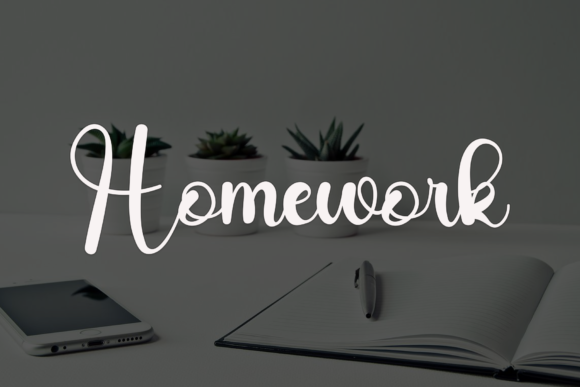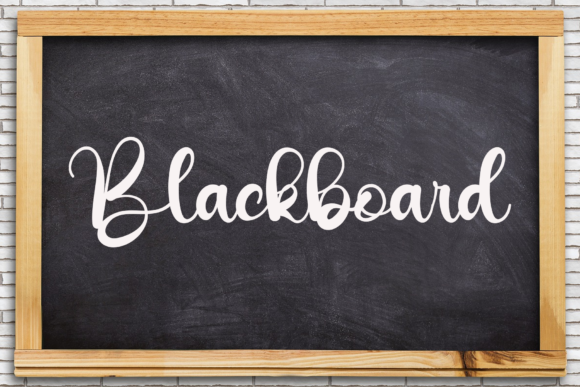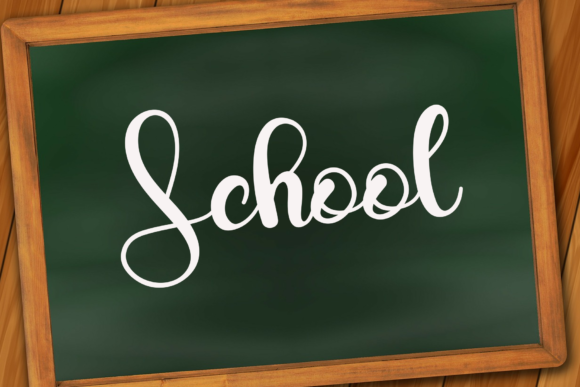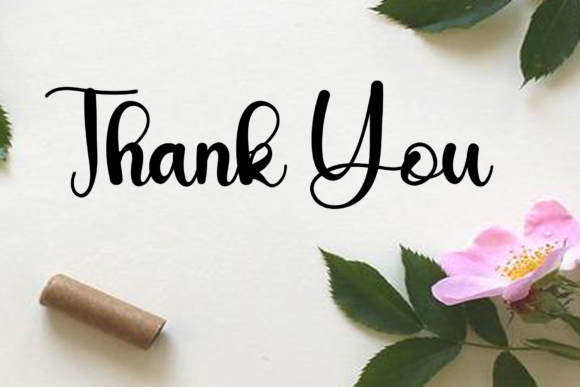
Writing Font
“Writing” is introduced as a finely crafted handwritten font that seamlessly blends smoothness, elegance, and flowing characters. With its beautiful and balanced character, this font effortlessly integrates into a diverse range of designs, promising to bring your most creative ideas to vibrant life.
The use of terms like “smooth, elegant, and flowing” effectively conveys the visual essence of “Writing.” Each stroke of the characters unfolds gracefully, contributing to an overall aesthetic that is not only smooth but also carries a refined elegance. This visual appeal enhances the font’s versatility, positioning it as suitable for a broad spectrum of design applications.
Describing “Writing” as a “handwritten” font adds a personal and authentic touch to its identity. This suggests a level of craftsmanship that extends beyond digital precision, imparting the script with a warm and inviting quality. The characters appear as though they were meticulously penned with individual attention.
The mention of a “beautiful and balanced character” underscores the font’s adaptability. Whether seamlessly integrated into branding materials, editorial layouts, or creative projects, “Writing” is tailored to enhance visual compositions with its inherent balance, ensuring a harmonious fit into diverse design contexts.
“Writing” transcends being a mere font; it serves as a catalyst for creativity. Its adaptability to a wide range of designs opens the door to a realm of artistic possibilities. By infusing your creative concepts with “Writing,” you introduce a touch of sophistication and artistry, transforming ordinary ideas into captivating visual narratives.
Incorporating “Writing” into your creative toolkit is an invitation to witness your ideas bloom to life. The font becomes a silent collaborator, enhancing the visual impact of your designs with its seamless elegance. As you experiment and infuse your creativity, “Writing” stands as a dependable and versatile companion, ready to elevate your projects.
In summary, “Writing” is presented as a smooth, elegant, and flowing handwritten font with a beautiful and balanced character. Its adaptability to a wide array of designs makes it a valuable asset for creative projects. By incorporating “Writing” into your most imaginative ideas, you can observe how this font brings a touch of sophistication and vibrancy to your visual creations.